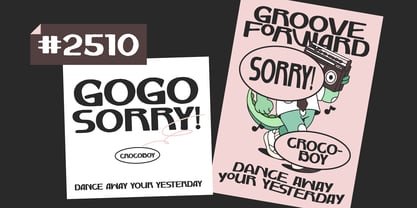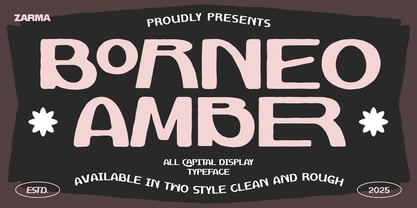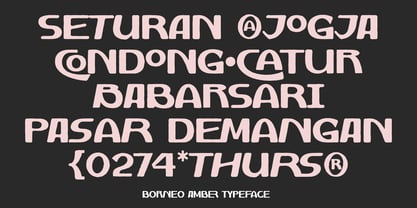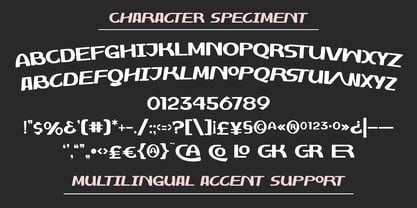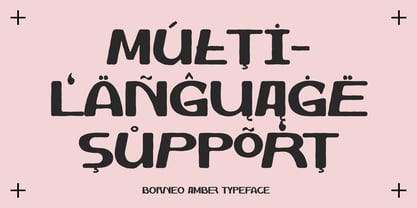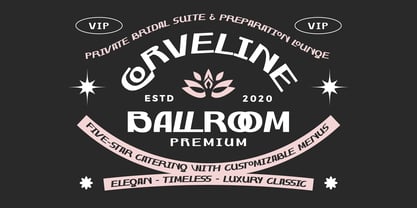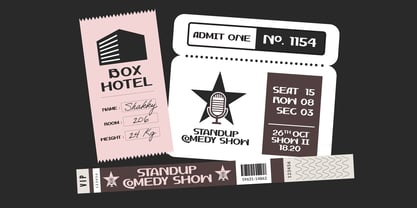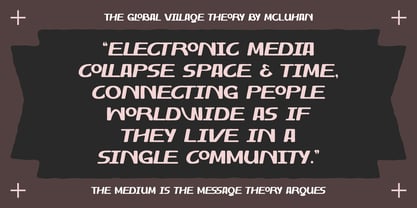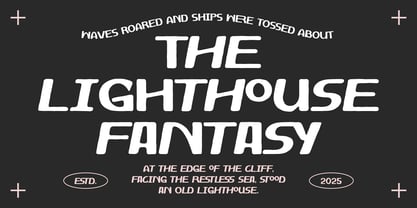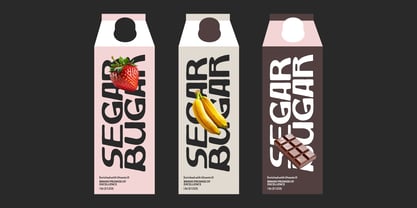
Borneo Amber
by Azzam Ridhamalik
The Borneo Amber Font Family was designed by Azzam Ridhamalik and published by Azzam Ridhamalik. Borneo Amber contains 2 styles and family package options. More about this family
Borneo Amber is a modern vintage font that captures the warmth of nostalgia with the bold confidence of contemporary design. Its structured letterforms combine clean geometry with soft curves, creating a balanced look that feels both industrial and handmade. This font evokes retro energy without losing modern clarity, making it ideal for brands that value heritage, creativity, and timeless personality. The mix of clean and rough styles enhances its flexibility, allowing you to shift between polished sophistication and organic charm. Inspired by vintage signage and early 20th-century typography, Borneo Amber works beautifully in branding projects that need boldness and authenticity. Whether for packaging, posters, or cafe logos, it adds a sense of craftsmanship and character to every layout. Designed with all-caps precision and multilingual support, this font gives you the tools to communicate confidence, consistency, and modern nostalgia in one distinctive typeface. Perfect for: Brand identity, product packaging, editorial design, cafe branding, retro posters, urban signage, apparel design, vintage labels, logo design, modern nostalgia projects. Features: 2 Styles (Clean & Rough), All Capital Character Set, Numbers and Punctuation, Stylistic Set and Ligatures, Multilingual Support, PUA Encoded Characters. Bring a touch of crafted nostalgia to your next project with Borneo Amber. Perfect for designers who love mixing vintage emotion with modern clarity—this typeface delivers warmth, strength, and timeless character in every letter.
Designers: Azzam Ridhamalik
Foundry: Azzam Ridhamalik